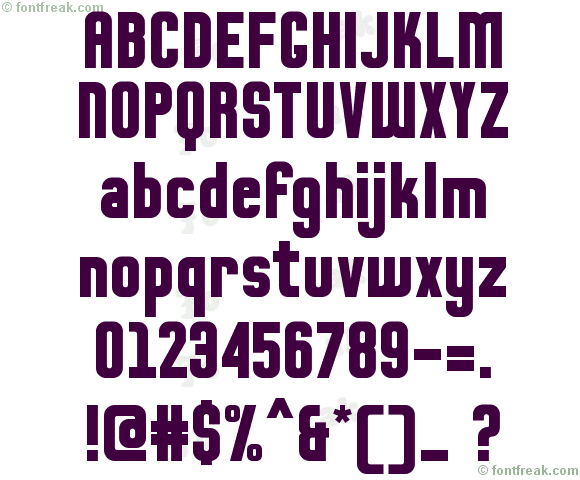
Fresko
Introducing the Fresko font by MonoFonts, a striking and modern display typeface that stands out with its unique character. This sans-serif font is designed with bold strokes, creating a strong visual impact that captures attention. The balanced contrast between thick and thin lines gives it a dynamic presence, making it suitable for various creative projects. The spacing is thoughtfully crafted, ensuring legibility while enhancing the overall aesthetic appeal.
The Fresko font is perfect for a multitude of use cases. Its bold and contemporary style makes it an excellent choice for eye-catching movie posters, where it can effectively convey themes and emotions. Additionally, it works wonderfully for restaurant menus, providing a modern twist that complements culinary creativity. Graphic designers will find it ideal for branding projects, helping small businesses establish a distinct identity. Fresko is also suitable for event promotions, adding flair to flyers and invitations.
Targeted towards graphic designers, small business owners, and content creators, Fresko offers versatility that appeals to a wide audience. Whether you are creating digital content or printed materials, this font can elevate your projects with its modern flair.
What sets the Fresko font apart is its ability to blend simplicity with boldness. It captures the essence of contemporary design while remaining accessible and versatile. With its freeware license, the Fresko font free download allows anyone to incorporate this stunning typeface into their work without any cost, making it an invaluable resource for creatives looking to enhance their designs with a fresh and modern typographic style. Embrace the boldness of Fresko and transform your projects today.